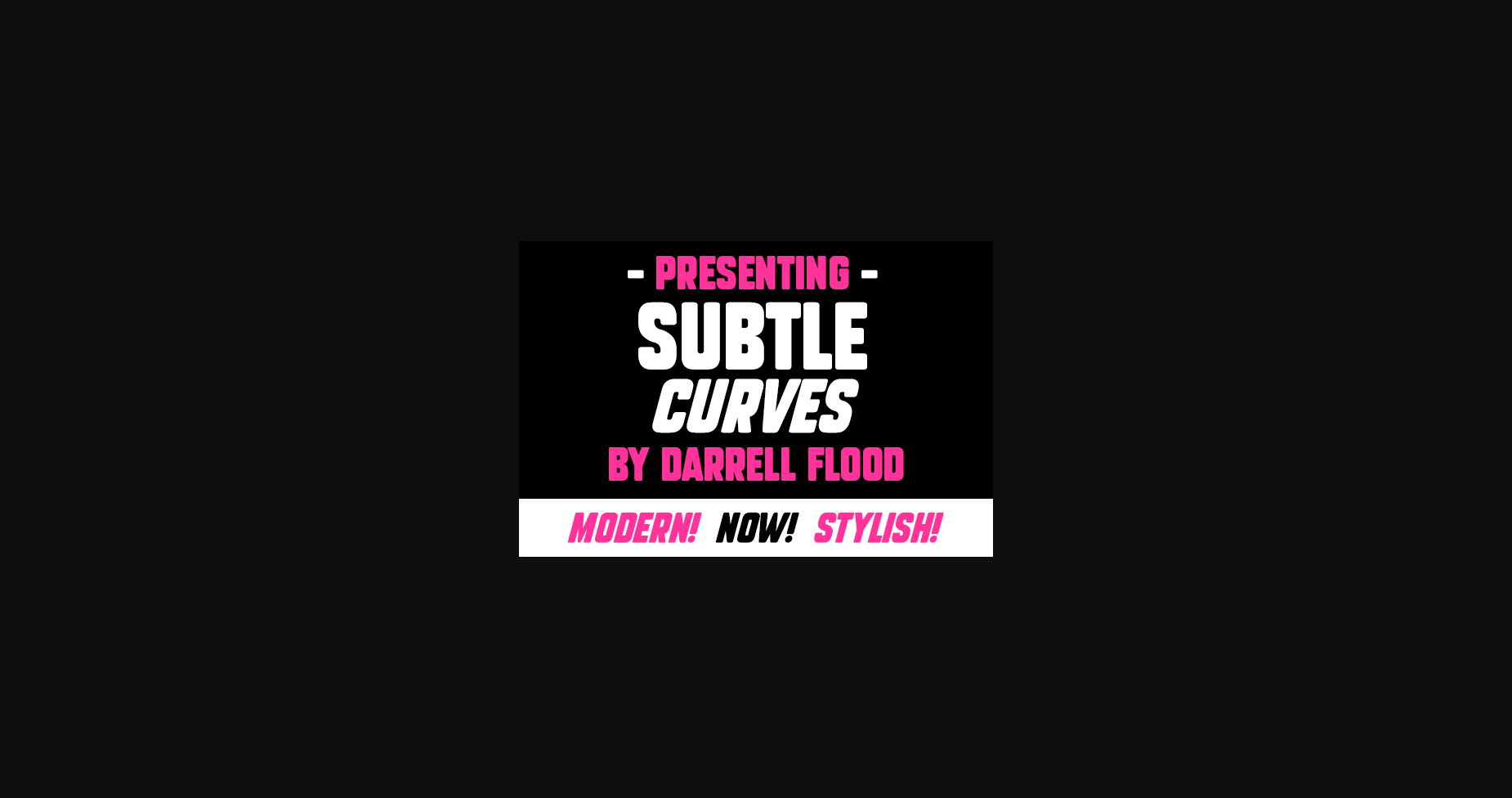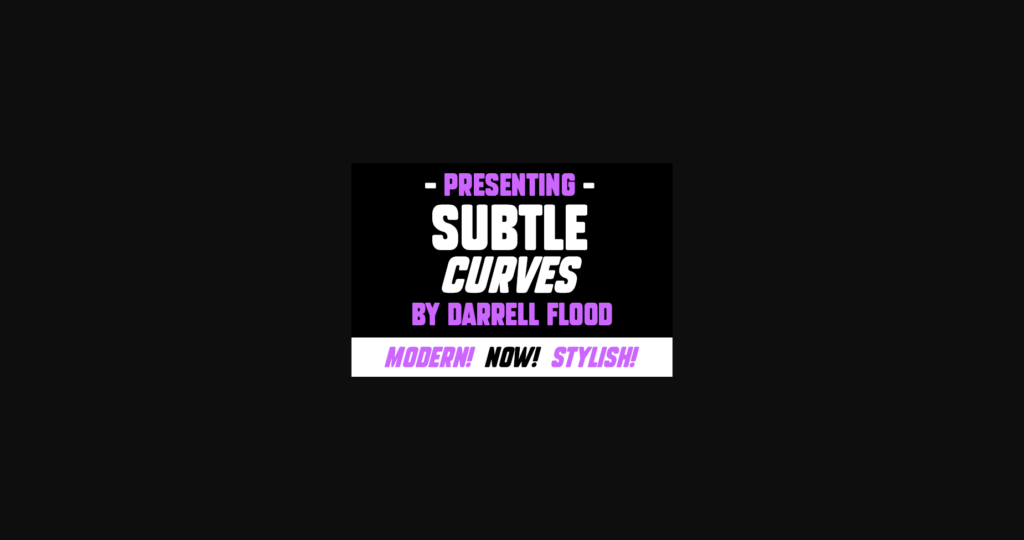
Subtle Curves is a cool, bold and thick lettered sans serif font. No matter the topic, this font will be an incredible asset to your fonts’ library, as it has the potential to elevate any creation.